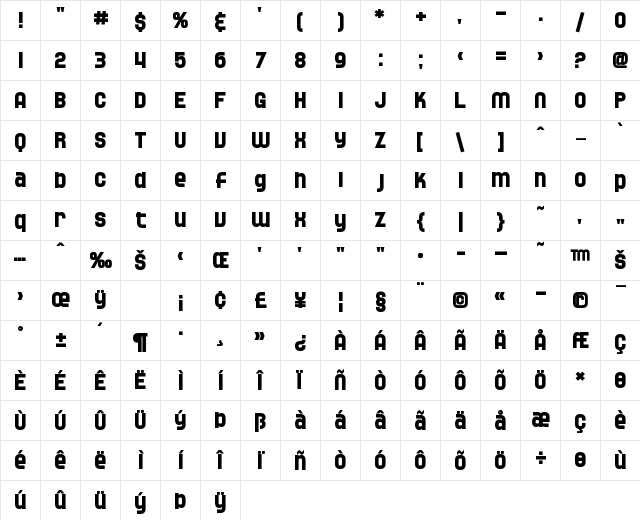
SF Speedwaystar Bold Free Font
SF Speedwaystar Bold
Design Context for SF Speedwaystar
SF Speedwaystar is a composed and adaptable typeface that performs quietly and consistently across a wide range of design contexts. Its bold stroke weight gives it real presence on the page.